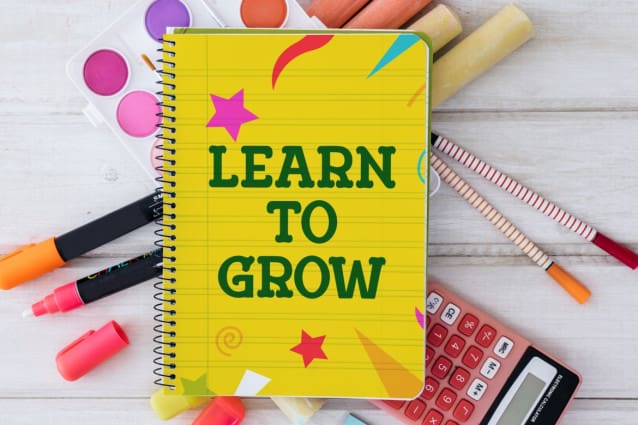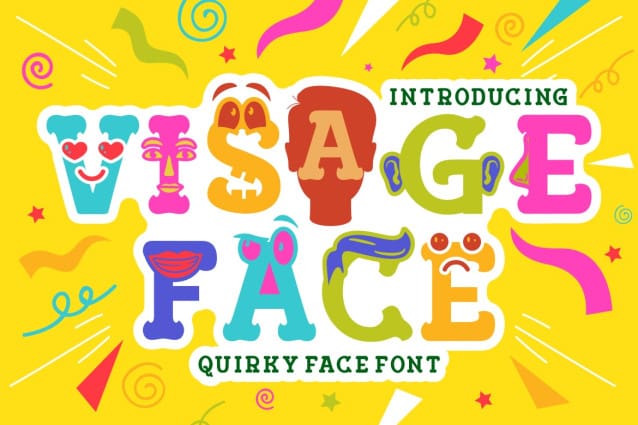
Visage Face Font
Visage Face Font – Quirky Face Font. This is a display font that is inspired by the funny faces and laughter of children. Every letter is designed with a unique face or emoticon that expresses a different emotion or personality. You can use them individually or mix and match them to create hilarious combinations.